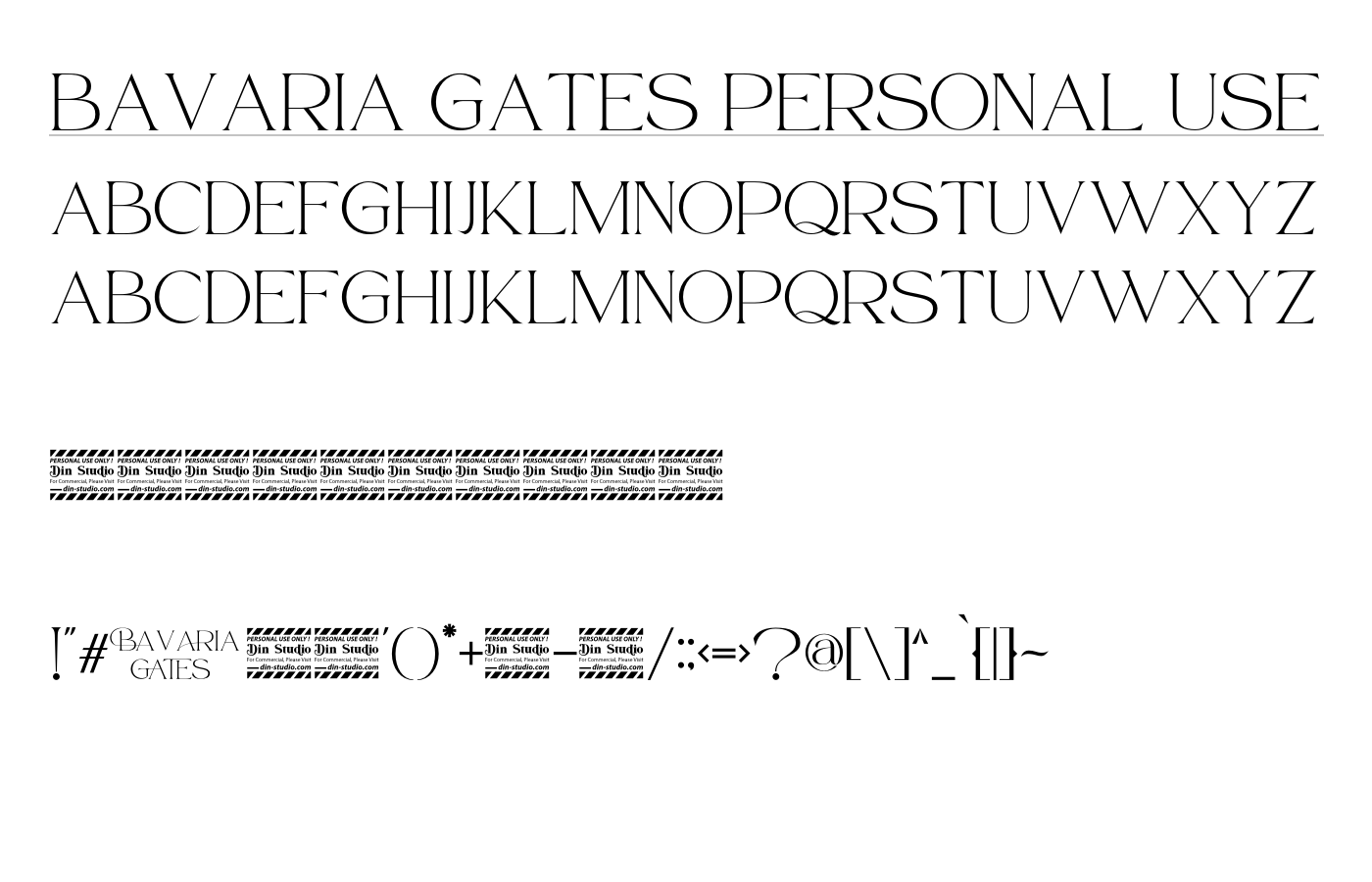
Bavaria Gates is a delicate serif font characterized by its thin, elegant strokes and high contrast between thick and thin lines, giving it a refined and sophisticated look. With its tall, narrow letterforms and classic serif details, it exudes a timeless luxury feel, making it ideal for fashion branding, upscale editorial headlines, and elegant logo design where a touch of grace and exclusivity is desired.
Bavaria Gates personal use Font
About Bavaria Gates personal use Font